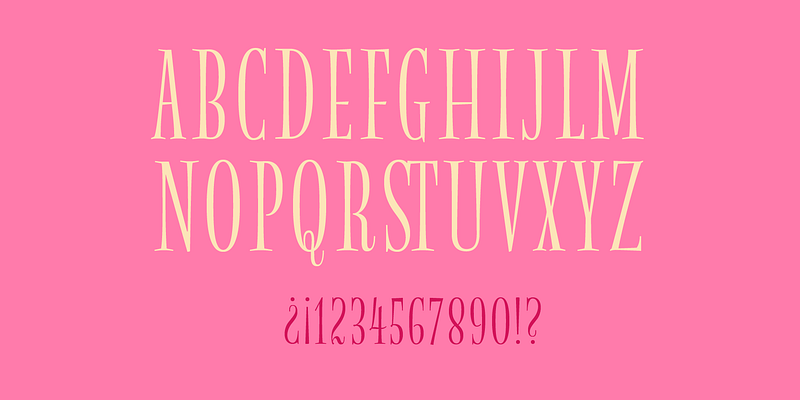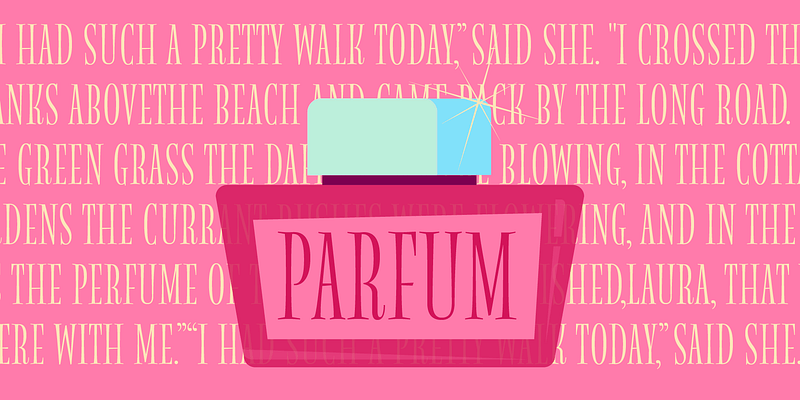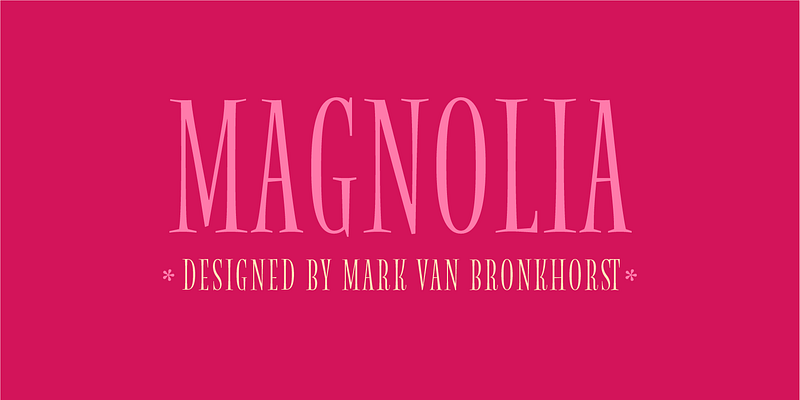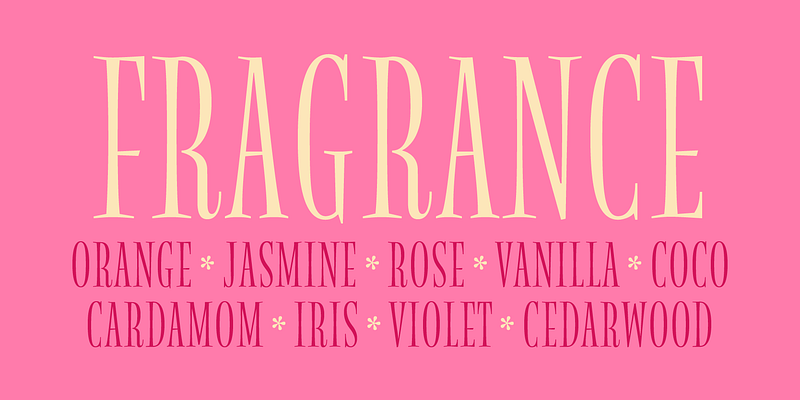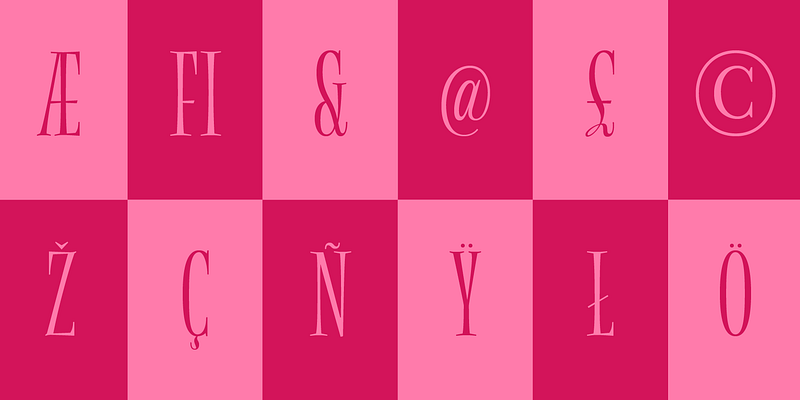
A comfortable tuxedo, a bright boutonniere, and a spring in your step. With Magnolia, Mark van Bronkhorst’s aim was to convey a sense of formality without stiffness. The slim lines and swooping vertical strokes cut an elegant figure. But the bouncy serifs, unimposingly low crossbars and relaxed bowls (see the “R” and “S”) make Magnolia approachable and friendly. It was designed by Mark and released by MvB Design in 1993, and revised for Adobe in 1998. Use Magnolia as a display face, especially at large sizes, anywhere that “high-end” and “humor” are part of the program.